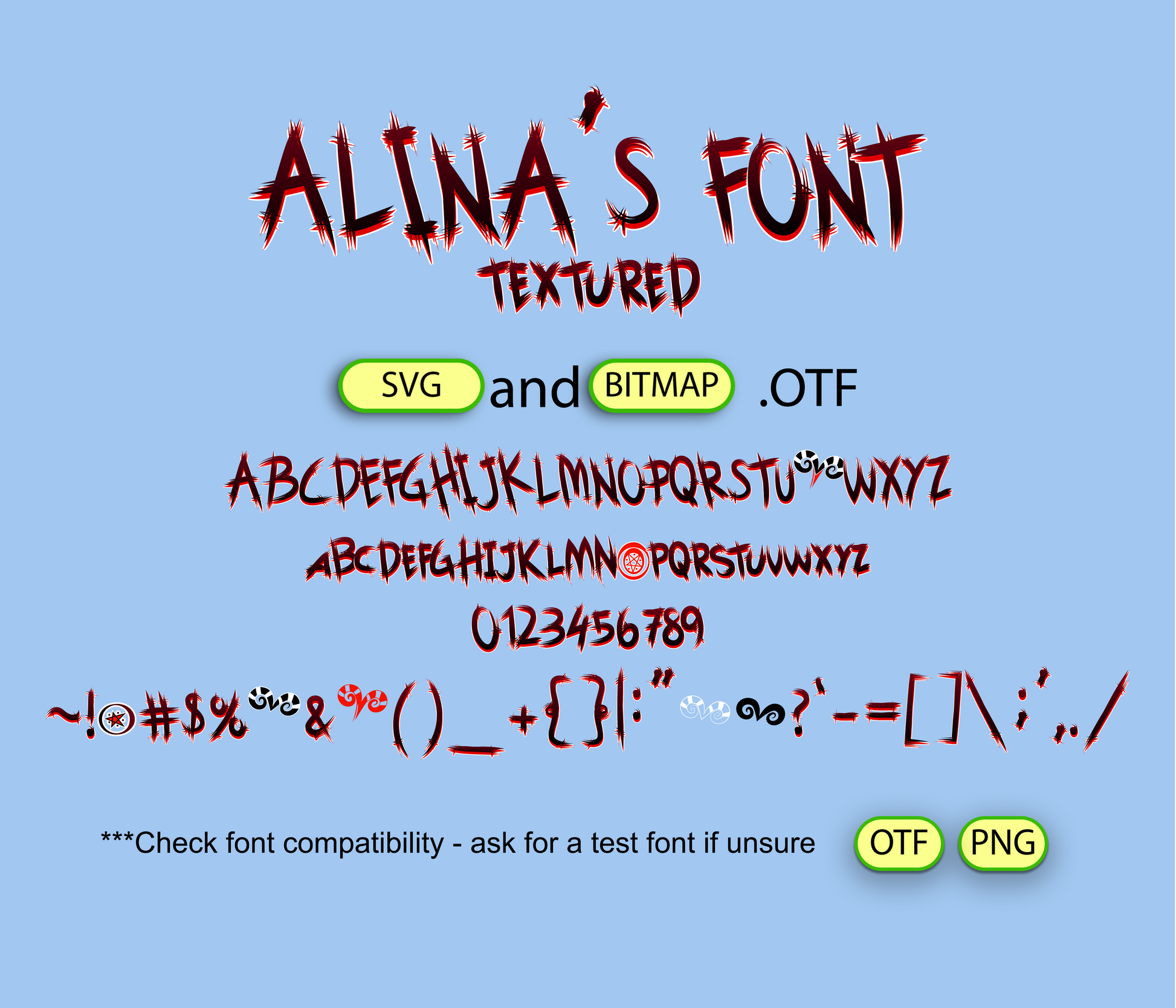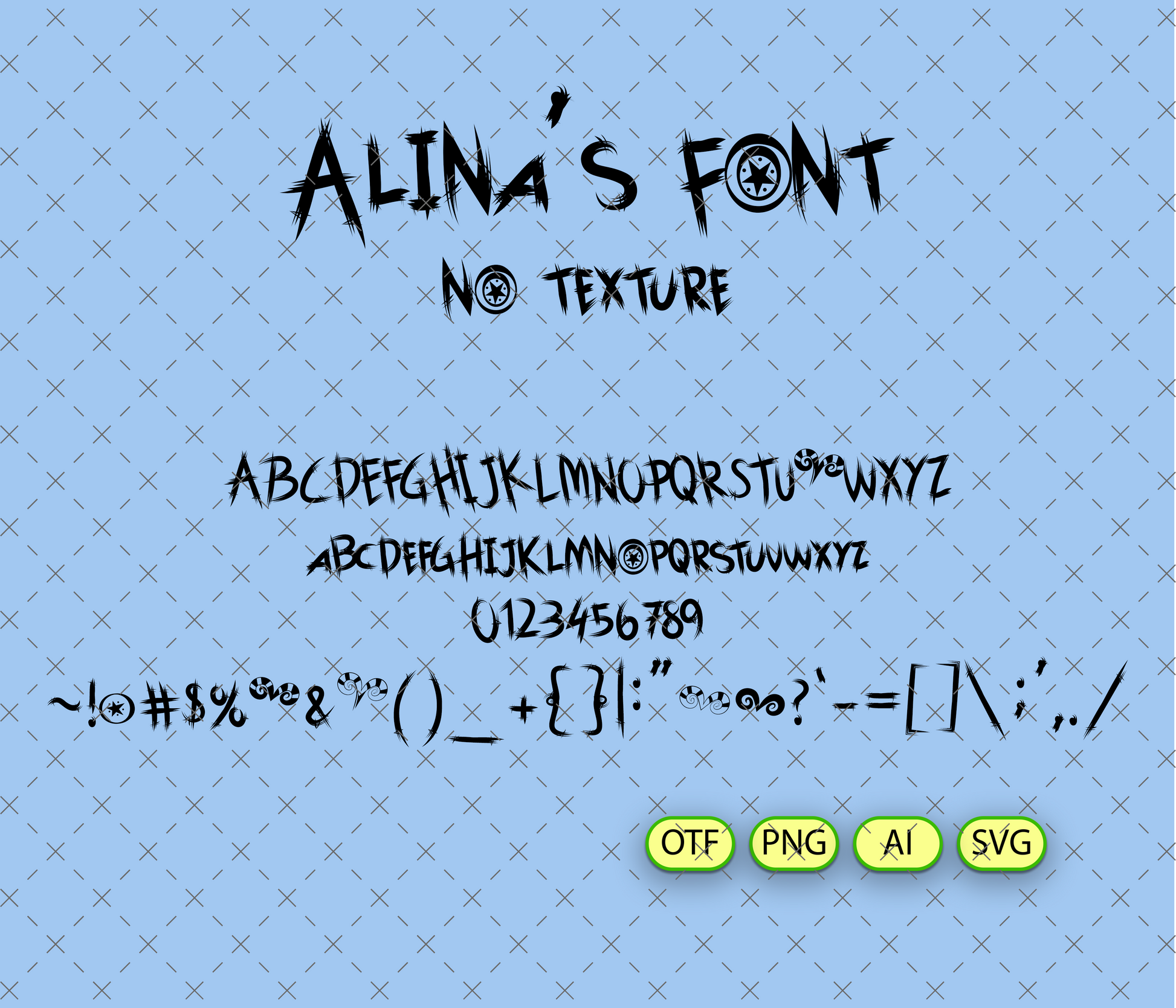
Underworld Comedy Font Textured
Step into the darkly hilarious world of demonic workplace satire with our Underworld Comedy Font Textured, capturing the bold, irreverent energy of adult animated storytelling, infernal character design, and sinfully stylized typography. Perfect for adult animation fans, dark humor content creators, indie comic artists, merchandise designers, and creative professionals, this font brings the sharp, chaotic spirit of hellish office comedy narratives to your projects. Create eye-catching merchandise, digital content, or event graphics with the wickedly playful energy of supernatural workplace storytelling.
Bold Dark Typography for Adult Animation, Horror Comedy & Indie Creative Design
Our Underworld Comedy Font Textured features dramatically stylized letterforms with richly layered infernal textures, reflecting the anarchic, visually striking aesthetic of dark animated storytelling, demonic character universes, and adult humor design culture.
- Event Promotions: Create wickedly eye-catching invitations, posters, and banners for Halloween gatherings, horror comedy nights, adult animation viewing parties, and dark-themed creative events
- Merchandise Design: Perfect for t-shirts, posters, stickers, enamel pins, and accessories that channel the bold, irreverent aesthetic of dark animated character culture and supernatural comedy fandoms
- Digital Media: Elevate websites, blogs, Twitch streams, and social media with sinisterly stylized headers and graphics that express a sharp, darkly humorous creative identity
- Creative Content: Add authentic infernal flair to indie comics, character illustrations, fan art projects, and creative designs inspired by adult animated storytelling and demonic workplace narratives
- Personal Projects: Bring wickedly bold energy to custom gifts, DIY crafts, cosplay materials, and personal projects inspired by the visually explosive world of dark humor animation aesthetics
Many search for a free online dark animation font generator to replicate this distinctive look. Steer clear! No generator can reproduce the authentic depth, sinister texture detail, and print-ready precision of our font. The included clean outline version is perfectly optimized for cutting machines, vinyl projects, and precision-based merchandise production.
Our font pays tribute to the wildly creative, darkly comedic world of adult animated storytelling and supernatural character design, empowering your projects with bold infernal energy and unapologetically sharp typographic style. Whether designing fan merchandise, creating dark-themed digital content, or adding a wickedly stylized touch to personal projects, this font delivers the fierce, chaotic essence of underworld comedy culture in every letter. Ready to unleash your darkest, most creative designs? This font is your ultimate key to bold, unforgettable, diabolically impactful typography.